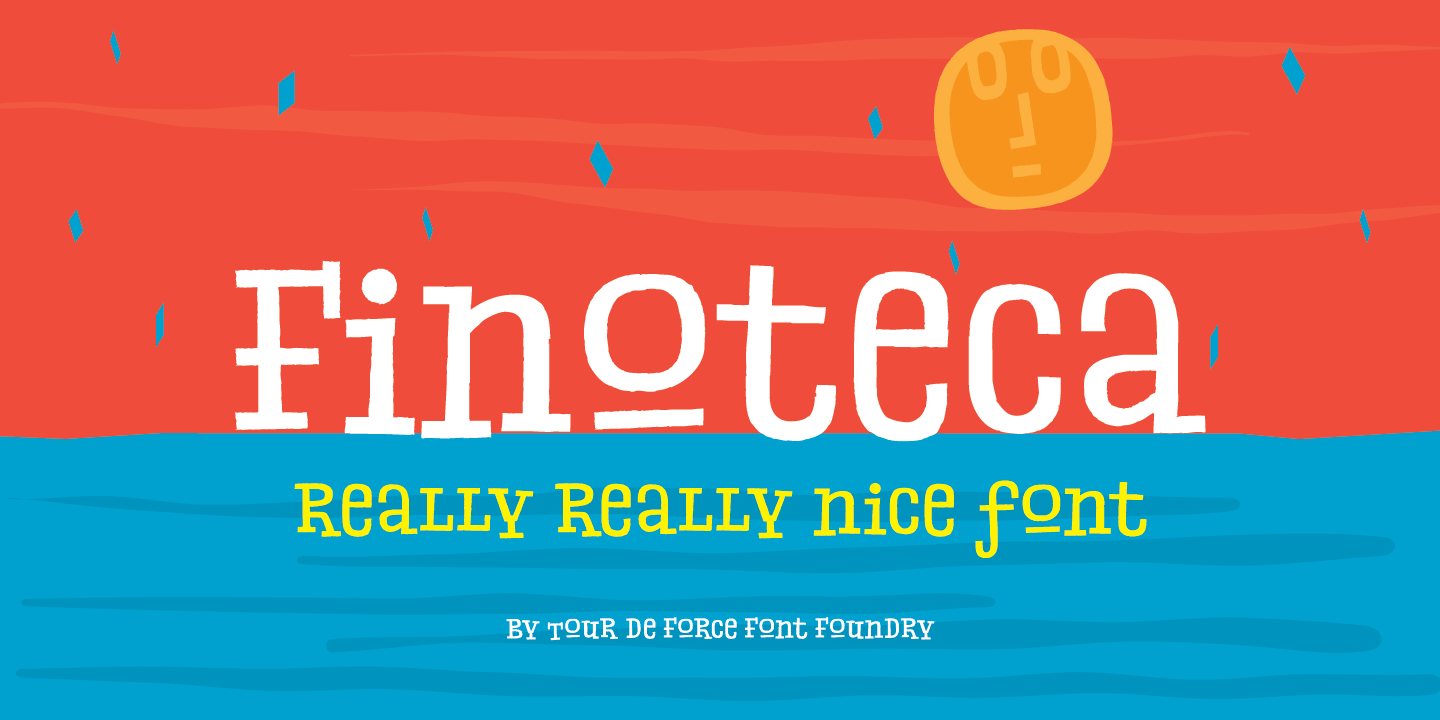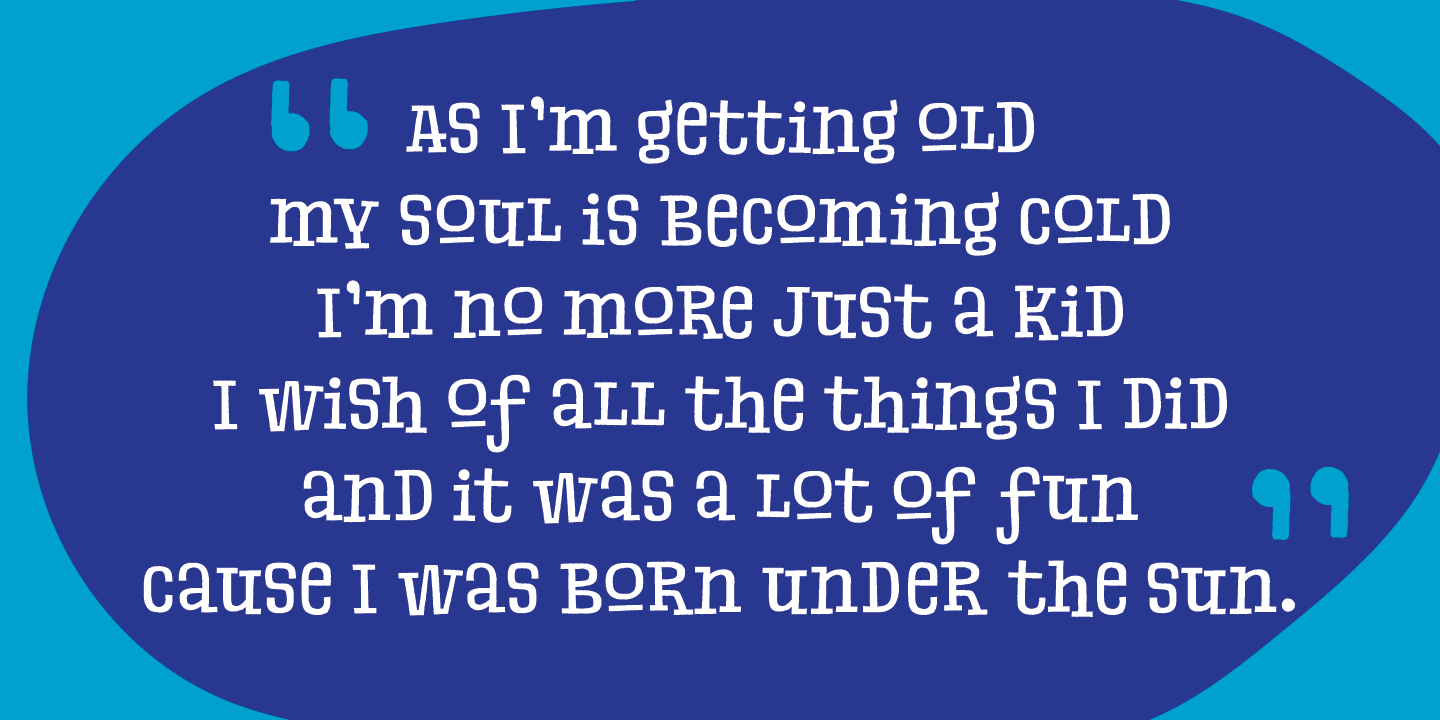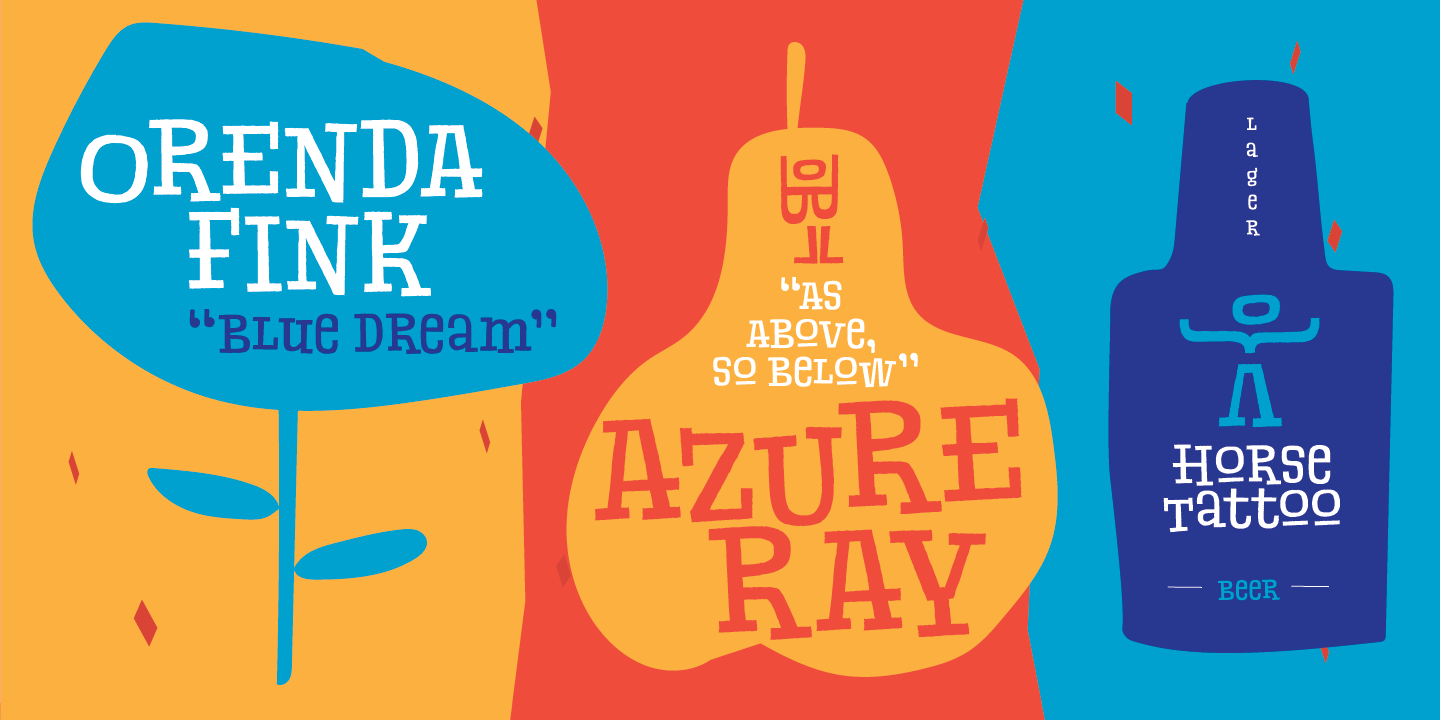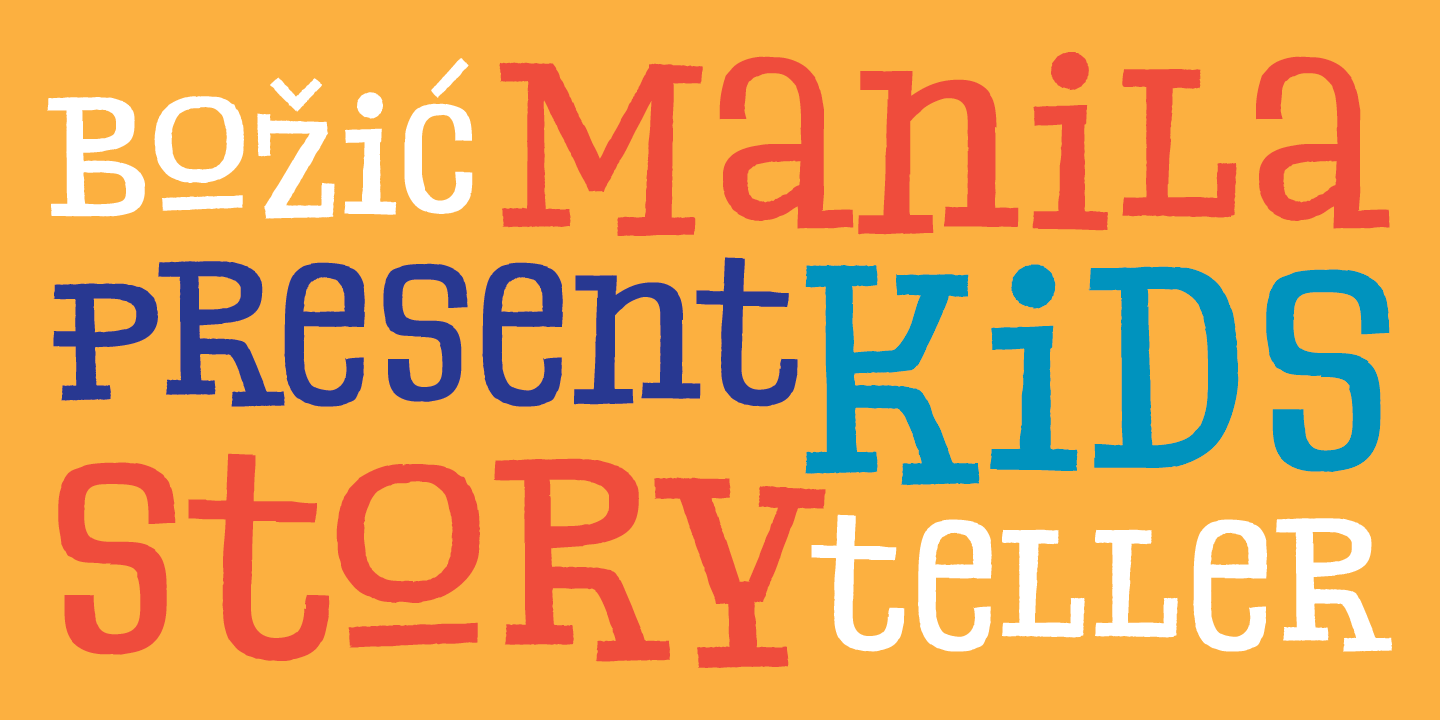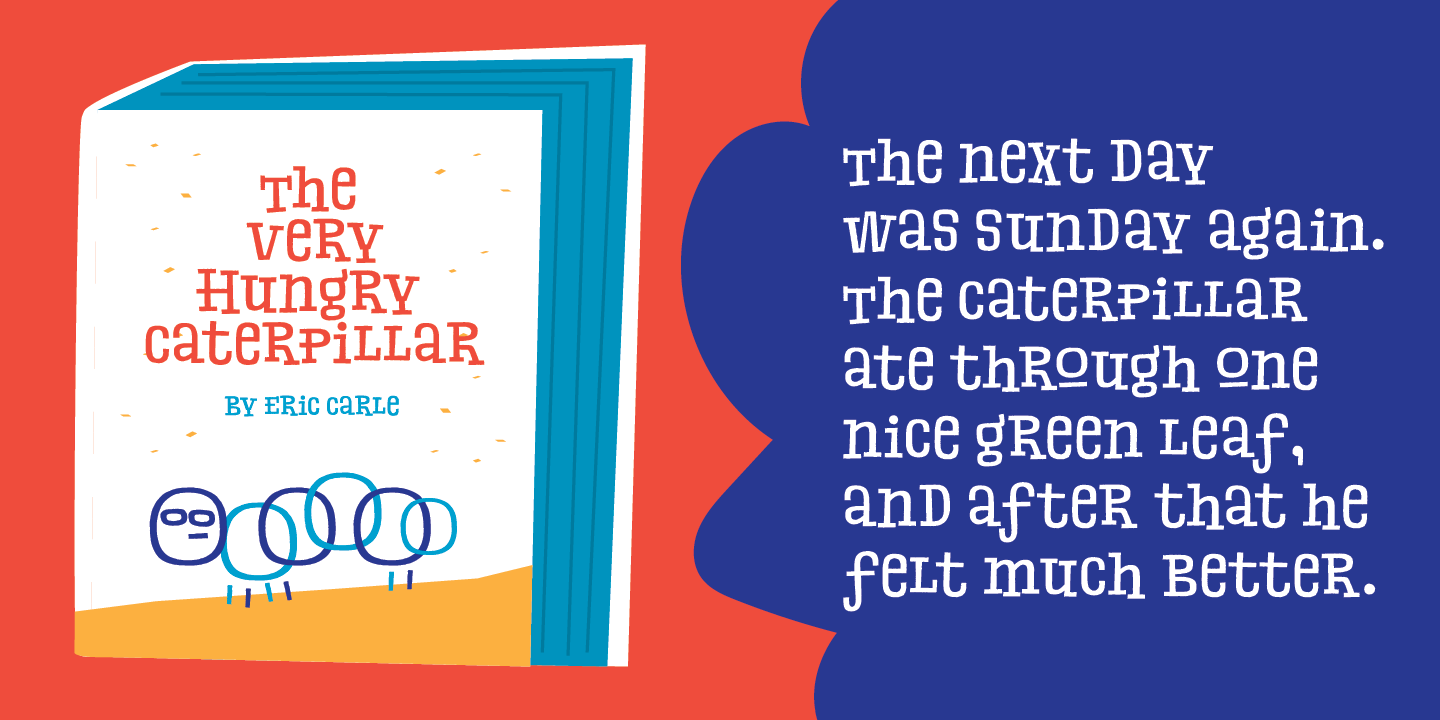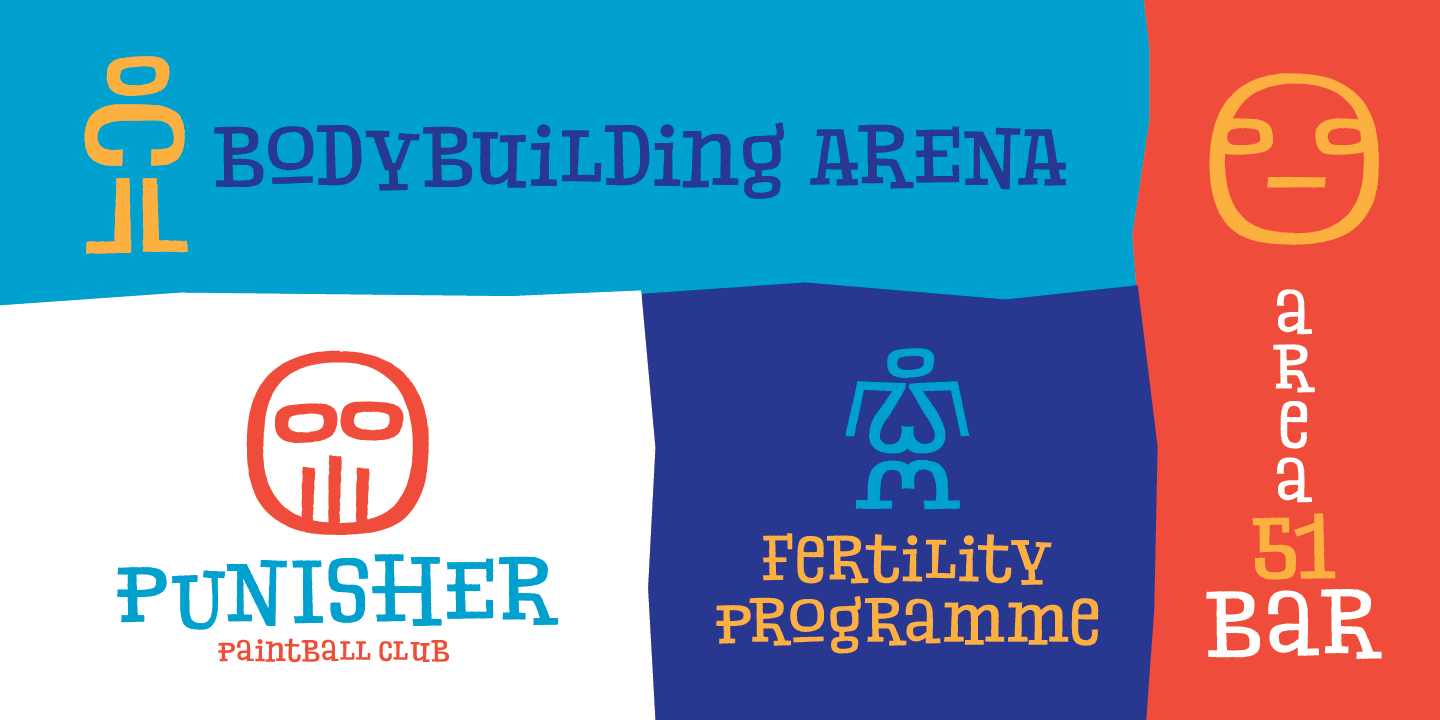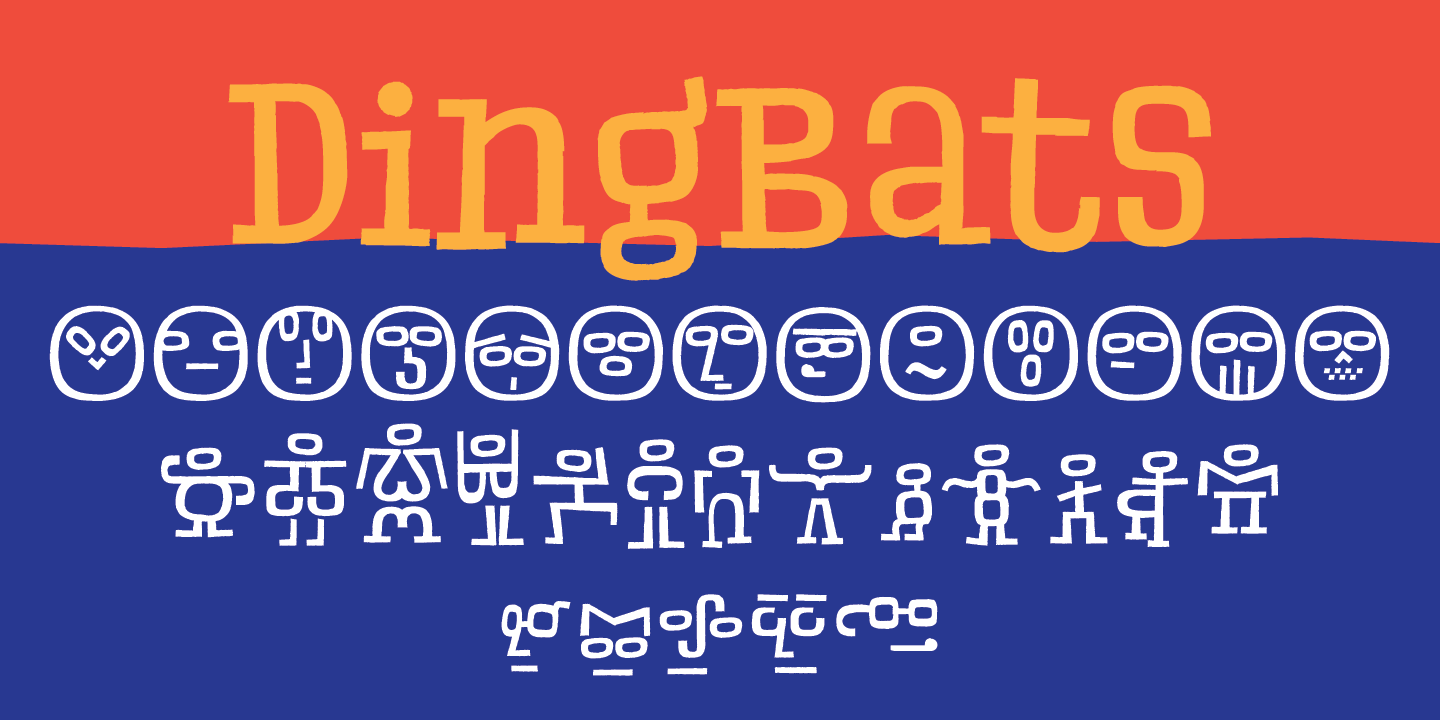
Finoteca (on English would be Niceteca) is display font for nice people. Why so? Well, by it's design, it's one happy, bouncy font with a lot of charm and positive feeling. Use it on product label, in books for kids, movie posters or as indoor graphic for your restaurant – if will fit anywhere.
Available as single weight only – Regular, contains set of stylistic dingbats with interesting faces and persons made out from letter shapes.